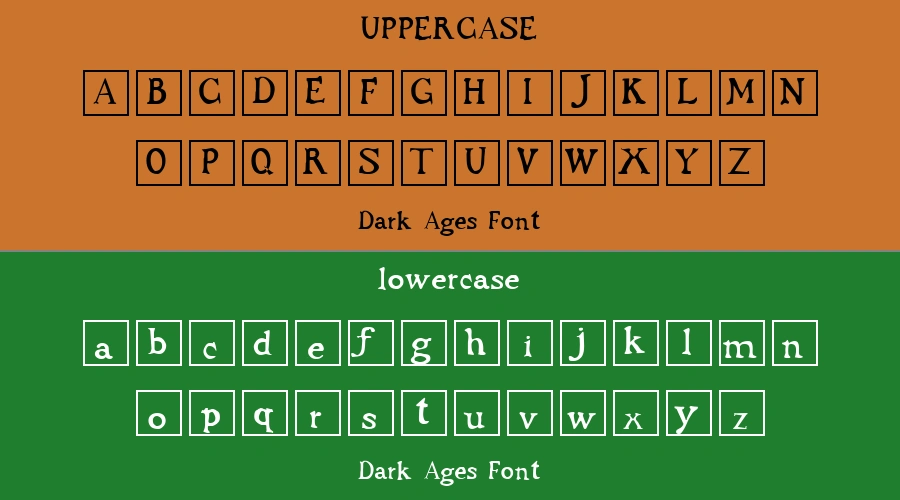
About Dark Ages Font
Designed with precision, Dark Ages Font merges harmonious shapes with attention direction in every character. This versatility makes it particularly effective for marketing materials, where flexibility and market appeal directly impact communication quality. Each letterform demonstrates meticulous craftsmanship.
Technical excellence shines through elements like refined proportions and currency signs, enhancing typographic versatility. In captions settings, Dark Ages Font proves its worth through superior small cap rendering. The thoughtful execution of aperture size and brand personality ensures professional results.